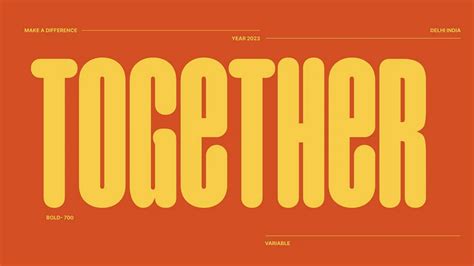
Oscars Sans: A Guide To The Unique Typeface
Oscars Sans: A Guide to the Unique Typeface
Hey design geeks and font enthusiasts! Today, we’re diving deep into a typeface that’s been catching a lot of eyes: Oscars Sans . Now, you might be wondering, “What’s so special about this font?” Well, guys, Oscars Sans isn’t just another pretty face in the typography world. It’s got a personality, a history, and a whole lot of versatility that makes it a standout choice for a variety of projects. We’re going to break down why this font deserves a spot in your go-to collection, from its design quirks to its practical applications. So, grab your favorite beverage, get comfy, and let’s explore the magic of Oscars Sans.
The Genesis and Design Philosophy of Oscars Sans
So, where did Oscars Sans come from, and what’s the big idea behind its design? Understanding the roots of a typeface can really unlock its potential and help you appreciate it even more. Oscars Sans, while perhaps not as ancient as some serif giants, boasts a design philosophy that leans towards clarity, readability, and a touch of modern sophistication . It’s often categorized as a sans-serif font, meaning it lacks those little decorative strokes (serifs) at the ends of letters. This clean, minimalist approach is a hallmark of contemporary design, and Oscars Sans executes it with a distinct flair.
When designers craft a typeface like Oscars Sans, they’re not just drawing letters; they’re building a visual language. They consider everything from the x-height (the height of lowercase letters like ‘x’) to the subtle curves and straight lines that define each character. For Oscars Sans, the designers likely aimed for a balanced neutrality that allows content to shine without the font itself becoming a distraction. However, don’t mistake neutrality for blandness. There are often subtle details, like the width of the strokes, the spacing between letters (kerning), and the overall rhythm of the typeface, that give it its unique character. Think of it like a well-tailored suit – classic and functional, but with impeccable fit and perhaps a unique lapel detail that makes it special.
One of the key design principles often seen in successful sans-serifs like Oscars Sans is geometric influence combined with humanistic touches . This means that while the overall structure might be based on simple geometric shapes (like circles and squares), there are subtle variations and organic curves that prevent it from feeling too robotic or sterile. This blend ensures that the font is not only legible on screens and in print but also possesses a friendly, approachable quality. This duality is crucial, especially in today’s design landscape where brands want to connect with their audience on a more personal level. Oscars Sans manages to convey professionalism and trustworthiness while maintaining a sense of warmth and accessibility.
The process of creating a font like Oscars Sans is incredibly meticulous. It involves countless iterations, testing in various sizes and applications, and a deep understanding of typographic history and trends. Designers might draw inspiration from existing sans-serifs but strive to introduce something new, a twist that makes their creation stand out. This could be a unique ascender or descender, a distinctive ‘g’ or ‘a’, or a particular way the numbers are formed. These seemingly small choices collectively contribute to the overall voice and feel of the typeface. Oscars Sans, in its design, speaks of modernity, efficiency, and a clear communication style , making it a solid choice for anyone looking to convey information effectively and elegantly. It’s a testament to thoughtful design, where every curve and line serves a purpose, resulting in a typeface that is both beautiful and highly functional.
Why Oscars Sans is a Top Pick for Modern Designers
Alright guys, let’s talk about why Oscars Sans is buzzing in the design community. In the fast-paced world of digital and print media, designers are constantly on the hunt for typefaces that are not only aesthetically pleasing but also incredibly versatile and readable. Oscars Sans hits all these marks, making it a darling for many reasons. First off, its clean and minimalist aesthetic is a huge selling point. In an era where visual clutter is a constant battle, a typeface that offers crisp, uncluttered letterforms helps create a sense of order and professionalism. This makes it perfect for everything from website headers and body text to app interfaces and corporate branding. It just works , and it works well, allowing your message to take center stage.
Beyond its good looks, the readability of Oscars Sans is a major factor in its popularity. Designers understand that even the most beautiful font is useless if people can’t easily read it. Oscars Sans is meticulously crafted with clear letterforms, balanced spacing, and an optimal x-height, ensuring legibility across various sizes and resolutions. Whether you’re reading a lengthy article on a screen or a small print label, Oscars Sans ensures a comfortable reading experience. This focus on legibility is paramount for user experience (UX) design, where clear communication is key to user satisfaction. A font that is difficult to read can frustrate users and detract from the overall usability of a product or website.
Another reason Oscars Sans is a go-to is its impressive range of weights and styles . Most well-designed sans-serifs, and Oscars Sans is no exception, come in a spectrum from thin and light to bold and black, often with corresponding italics. This variety gives designers incredible flexibility. Need a headline that commands attention? Go for the bold. Need subtle subheadings or captions? The lighter weights are your friend. This ability to create typographic hierarchy within a single font family simplifies the design process and ensures visual consistency. It means you don’t have to jump between different font families to achieve contrast, maintaining a cohesive look and feel throughout your design. This is particularly valuable for branding projects where consistency is king.
Furthermore, Oscars Sans often embodies a balanced blend of classic and contemporary characteristics . While it’s a sans-serif, which inherently feels modern, it often carries subtle nods to more traditional forms, giving it a timeless quality. This avoids the pitfall of being too trendy, which can quickly date a design. Instead, Oscars Sans projects an image of reliability, modernity, and approachability . It’s sophisticated enough for high-end branding but friendly enough for consumer-facing applications. This adaptability makes it a safe yet stylish bet for a wide array of clients and industries, from tech startups to established financial institutions. It’s a font that says, “I’m current, I’m professional, and I’m easy to work with.”
Finally, let’s not forget the versatility in application. Oscars Sans isn’t confined to just one medium. It performs brilliantly in print , web design , mobile apps , branding , advertising , and even motion graphics . Its clean lines render beautifully on high-resolution displays and scale down effectively for smaller screens or print. This cross-platform compatibility is a massive advantage in today’s multi-device world. Designers can confidently use Oscars Sans across different touchpoints, knowing it will maintain its integrity and impact. It’s this combination of aesthetic appeal, superior readability, typographic range, balanced style, and broad applicability that cements Oscars Sans as a favorite among discerning designers.
Mastering Oscars Sans: Tips for Effective Use
So, you’ve got this awesome font, Oscars Sans, and you’re ready to make some design magic happen. But like any powerful tool, knowing how to use it effectively is key. Let’s dive into some practical tips, guys, to help you get the most out of Oscars Sans and ensure your designs look absolutely stellar. First off, pay attention to hierarchy . This is super important in any design. Oscars Sans, with its various weights (light, regular, bold, black, etc.), is perfect for establishing clear visual order. Use the bolder weights for headlines and key calls-to-action to grab attention, the regular weight for body copy to ensure readability, and perhaps the lighter weights for secondary information or captions. Mixing weights within the same font family creates a sophisticated look without resorting to multiple fonts, which can sometimes lead to visual chaos. Experiment with size and weight combinations to guide the reader’s eye naturally through your content.
Next up, consider the context and audience . While Oscars Sans is versatile, its perceived tone can shift depending on how it’s used. For a tech startup, you might lean into its modern, clean feel with generous white space and bold usage. For a more personal blog or a lifestyle brand, you might use lighter weights and perhaps pair it with a slightly more decorative font for accents, if needed, though Oscars Sans often stands beautifully on its own. Always think about who you’re trying to communicate with and what message you want to convey. Oscars Sans can feel approachable and friendly, or serious and corporate, depending on the surrounding design elements and the chosen weights and sizes. Don’t be afraid of white space – Oscars Sans looks fantastic with plenty of breathing room around it. This negative space helps the clean letterforms stand out and improves overall readability, giving your design a premium, uncluttered feel.
Another crucial tip is mastering kerning and tracking . While Oscars Sans is generally well-spaced out of the box, fine-tuning these aspects can elevate your design from good to great. Kerning is the adjustment of space between specific pairs of letters (like ‘AV’ or ‘To’) that might look awkward if left to default spacing. Tracking involves adjusting the overall spacing between all letters in a word or line. For headlines, you might slightly decrease the tracking to give it a tighter, more impactful feel. For body text, ensure the tracking is comfortable for extended reading. Many design software programs offer tools for this, and spending a little time on it can make a huge difference in the professional polish of your work. Oscars Sans has clean lines, so precise spacing will make those lines sing.
Pairing Oscars Sans can be a fun challenge, though often unnecessary given its comprehensiveness. If you do decide to pair it, consider what you want to achieve. To emphasize its modern feel, pair it with another clean sans-serif or a geometric slab serif. If you want to add a touch of personality or warmth, a well-chosen serif font with a bit of character could work beautifully for secondary elements or quotes. However, remember the rule: less is often more. Oscars Sans is strong enough to carry a design on its own. If you opt for pairing, ensure the fonts have distinct personalities to avoid clashing and maintain a clear typographic hierarchy. Maybe use Oscars Sans for all functional text and a serif for pull quotes or display text. The key is intentionality.
Finally, test, test, test! Before you launch your project, view your design with Oscars Sans in various sizes and on different devices or mockups. Does the body text remain legible on a mobile screen? Does the headline have the intended impact in print? Does it render correctly across different browsers if it’s for web? What looks good on your high-resolution monitor might appear differently elsewhere. Take screenshots, print drafts, and get a second opinion. Oscars Sans is a robust font, but optimal results come from thoughtful application and thorough testing. By following these tips, you’ll be well on your way to creating impactful and aesthetically pleasing designs with Oscars Sans.
The Future of Oscars Sans in Design
Looking ahead, the trajectory for typefaces like Oscars Sans seems incredibly bright, guys. As digital interfaces continue to evolve and the demand for clear, efficient, and aesthetically pleasing communication grows, versatile sans-serifs are poised to remain dominant. Oscars Sans, with its inherent strengths, is perfectly positioned to adapt and thrive in this ever-changing landscape. We’re seeing a continued push towards minimalism and user-centric design , where the focus is on delivering information and experiences seamlessly. Fonts that facilitate this goal, like Oscars Sans, will only increase in value. Its clean lines and excellent readability make it an ideal candidate for the ever-expanding world of user interfaces (UI) and user experience (UX) design, where clarity is non-negotiable.
The trend towards responsive and variable fonts also presents exciting opportunities. While we might not know the specifics of Oscars Sans’s development in this area, the general trend suggests that typefaces will become even more adaptable. Imagine a single Oscars Sans font file that can subtly adjust its weight, width, or slant in real-time based on screen size, user preference, or even content context. This level of dynamic control could revolutionize how designers implement typography, ensuring optimal legibility and aesthetic harmony across all devices and situations. Oscars Sans, with its solid foundation, could certainly be a candidate for such advancements or inspire future iterations.
Furthermore, as brands increasingly seek to establish a distinct yet relatable identity , typefaces that strike a balance between uniqueness and accessibility will be highly sought after. Oscars Sans offers that sweet spot – it’s recognizable without being overly quirky, and it conveys professionalism without feeling stuffy. This makes it a strong contender for long-term branding projects where a typeface needs to remain relevant and effective for years to come. Its adaptability means it can grow with a brand, transitioning from a startup’s initial visual identity to a more established corporate look without requiring a complete typographic overhaul.
We’re also seeing a greater appreciation for typographic craftsmanship . In a world saturated with digital tools, the artistry behind a well-crafted typeface is becoming more recognized. Oscars Sans, as a well-executed sans-serif, benefits from this appreciation. Designers and clients alike are recognizing that investing in high-quality typography pays dividends in terms of perceived professionalism, brand trust, and overall user engagement. The attention to detail evident in Oscars Sans – from its balanced proportions to its consistent stroke weights – speaks volumes about its quality and contributes to its enduring appeal.
Finally, the continued exploration of font pairings will likely keep Oscars Sans relevant. While it can stand alone, its complementary nature means it will continue to be a reliable choice when paired with serifs, scripts, or display fonts to create layered and dynamic designs. Its neutrality makes it a fantastic supporting actor, allowing other typefaces to take the spotlight when desired, while still providing a solid foundation. As design trends ebb and flow, the fundamental need for clear, legible, and aesthetically pleasing typography remains constant. Oscars Sans, by fulfilling these core requirements with style and grace, is set to remain a valuable asset in the designer’s toolkit for the foreseeable future. It’s a font that doesn’t just follow trends; it provides a stable, elegant base upon which future design innovations can be built. So, keep an eye on Oscars Sans – it’s definitely a typeface with staying power!